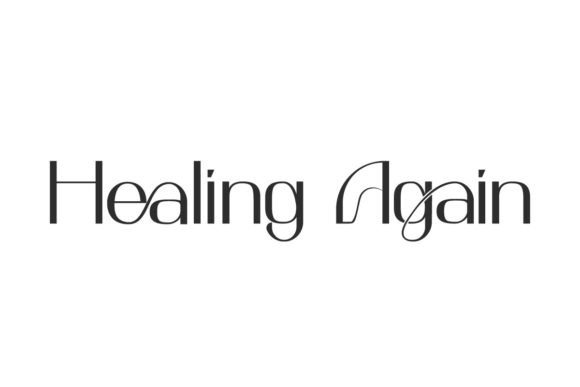
Healing Again: A Modern Display Typeface for Editorial Clarity
I remember the exact moment I realized my blog’s visual identity was fighting against its own content. The site was clean, the writing was thoughtful, but the typography felt disjointed. I had been using a standard sans-serif for headlines that lacked personality, while the body text drifted into a dense block of grey. It wasn’t until I stepped away from the screen and looked at a well-designed magazine cover that I understood what was missing: rhythm. I needed a typeface that could command attention without shouting, one that offered a modern, elegant presence suitable for digital screens and printed pages alike. That search led me to Healing Again, a display font that has since become a cornerstone of my editorial design process.
The Visual Character of Healing Again
At first glance, Healing Again presents itself as an elegant sans-serif display font with a distinctly modern eye-catching style. But looking closer reveals why it works so well in publishing contexts. The letterforms are refined, balancing geometric precision with subtle humanist touches that prevent the text from feeling sterile or overly technical. This balance is crucial for editorial design, where the goal is to guide the reader’s eye smoothly through the content rather than distracting them with aggressive styling.
The font carries a calm, confident mood. It doesn’t rely on excessive decoration or quirky alternates to make a statement. Instead, it uses spacing, weight contrast, and clean lines to establish authority. When I tested it on a lifestyle blog redesign, the headlines immediately felt more cohesive with the rest of the layout. The font has enough character to serve as a brand asset but remains neutral enough to let the photography and copy take center stage. It is this restraint that makes it a versatile choice for creators who want their work to feel premium and polished.
Real-World Applications in Content Creation
In my experience as a publisher, the right display font can elevate a project from a simple document to a branded experience. I recently used Healing Again for a series of digital worksheets designed for a coaching program. The client wanted something that felt supportive yet professional—words that literally echoed the product name. The font’s smooth curves and open apertures provided a welcoming visual tone that encouraged engagement. Because the letters are highly legible even at smaller sizes, it worked beautifully for section headers and instructional steps within the PDF guides.
I also experimented with the font for a wedding guide ebook. Here, the elegance of the sans-serif structure complemented the soft, romantic imagery without competing with it. Using Healing Again for chapter titles and pull quotes created a consistent visual thread throughout the book. It proved that a modern typeface isn’t limited to tech startups or minimalist brands; it has a place in any niche where clarity and aesthetic appeal matter. Whether you are designing a newsletter header, a printable planner, or a course PDF, this font offers the structural integrity needed to hold complex layouts together.
Supporting Visual Hierarchy and Readability
One of the most critical aspects of web design and digital publishing is establishing a clear hierarchy. Readers often scan before they read, and typography is the primary tool for guiding that scan. Healing Again excels here because of its distinct weight variations. By using the heavier weights for main headings and lighter weights for subheadings, I was able to create a logical flow that helped readers navigate long-form articles with ease.
The font’s x-height and line spacing are optimized for screen reading, which is essential given that most of our audience consumes content on mobile devices. In tests comparing different sans-serif fonts, Healing Again maintained its legibility better than many decorative alternatives when scaled down. This makes it an excellent candidate for social media graphics where text must be readable in small thumbnails, as well as for app interfaces where space is at a premium. Its modern typography ensures that your message remains crisp whether viewed on a high-resolution retina display or a standard laptop screen.
Strategic Font Pairing for Editorial Balance
No single font can do everything. While Healing Again is powerful for headlines, logos, and short phrases, it is not designed for dense body copy. Using a display font for paragraphs can lead to reader fatigue, as the eye struggles to maintain focus on characters that are too stylized. To solve this, I recommend pairing Healing Again with a highly readable serif font for your main text. The contrast between the modern, clean lines of the display font and the traditional warmth of a serif creates a sophisticated dynamic that is common in high-end magazines and literary journals.
For captions, navigation menus, and UI elements, a neutral sans serif font works best. This triad—display for impact, serif for comfort, and neutral sans for utility—creates a complete typographic system. For example, in a recent recipe ebook project, I used Healing Again for the dish names and introduction, a classic serif for the ingredients and instructions, and a clean sans-serif for nutritional data and tags. This approach ensured that each piece of information was presented in the most appropriate visual context, enhancing both aesthetics and usability.
Practical Considerations for Designers
Ultimately, Healing Again is more than just a collection of letters; it is a tool for building trust and engagement. In a digital landscape saturated with noise, a calm, elegant, and well-chosen creative font can help your brand stand out by projecting stability and quality. Whether you are redesigning your brand identity or simply updating your latest article, giving Healing Again a try might be the quiet upgrade your publication needs.